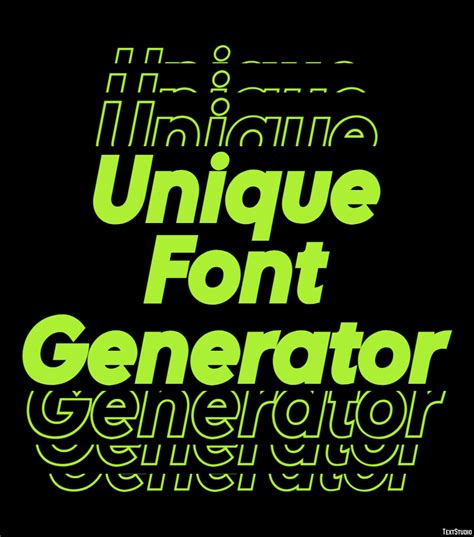
Psepselbasese Font Generator: Create Unique Text!
Psepselbasese Font Generator
Hey guys! Ever wanted to create text that looks totally unique and stands out from the crowd? Well, you’ve come to the right place! In this article, we’re diving deep into the world of Psepselbasese font generators. These nifty tools allow you to transform ordinary text into something extraordinary, adding a touch of creativity and fun to your messages, social media posts, designs, and more. Whether you’re a seasoned designer or just looking to spice up your online presence, understanding how to use a Psepselbasese font generator can unlock a whole new level of textual expression. Let’s explore what these generators are, how they work, and how you can make the most of them. By the end of this guide, you’ll be crafting eye-catching text that’s sure to grab attention and leave a lasting impression. So, buckle up and get ready to unleash your inner font wizard!
What is a Psepselbasese Font?
Okay, first things first: what exactly is a Psepselbasese font? The term “Psepselbasese” doesn’t refer to a specific, pre-defined font in the traditional sense like Arial or Times New Roman. Instead, it’s more of a playful term often associated with unique or stylized text transformations . Think of it as a code name for fonts that are a little bit out there, maybe quirky, or designed to be especially attention-grabbing. These fonts might incorporate unusual letterforms, decorative elements, or unconventional spacing. Essentially, a Psepselbasese font is all about standing out and making a statement.
Now, where do these fonts come from? Often, they’re the result of creative experimentation by graphic designers or font enthusiasts who want to push the boundaries of typography. They might start with a standard font and then modify it extensively, adding serifs, changing the letter shapes, or incorporating visual effects. Other times, Psepselbasese-style fonts are generated algorithmically using specialized software or online tools. These tools allow you to input regular text and then apply various transformations to create a unique output. The key is that these fonts aren’t your everyday, run-of-the-mill typefaces. They’re designed to be special, memorable, and often a little bit whimsical. They’re perfect for adding a touch of personality to your projects and making your text truly unforgettable.
How Does a Psepselbasese Font Generator Work?
So, how do these magical Psepselbasese font generators actually work? The basic principle is that they take your regular text input and then apply a series of transformations to it. These transformations can range from simple stylistic changes to more complex alterations of the letterforms themselves. Behind the scenes, these generators use a combination of algorithms, pre-designed templates, and character mappings to achieve the desired effect. When you type your text into the generator, the software breaks it down into individual characters. Then, for each character, it looks up the corresponding transformed version based on its internal rules and resources. Finally, it reassembles these transformed characters to create the final output, which you can then copy and paste into your project.
Let’s break down the process step-by-step:
1. Input: You enter your desired text into the generator’s input field. This could be a word, a phrase, or even a whole paragraph.
2. Processing: The generator’s algorithms analyze your input and identify each character.
3. Transformation: For each character, the generator applies a specific transformation based on the selected font style. This might involve changing the letter’s shape, adding decorative elements, or altering its spacing.
4. Output: The generator reassembles the transformed characters into a new string of text, which is displayed as the output. This output is the Psepselbasese-style version of your original text.
5. Copy & Paste: You can then copy the generated text and paste it into your desired application, such as a social media post, a design project, or a document.
Different generators may offer different levels of customization. Some might allow you to adjust parameters like font size, color, and spacing, while others might provide a selection of pre-designed font styles to choose from. Regardless of the specific features, the underlying principle remains the same: to transform ordinary text into something unique and eye-catching. These generators are a powerful tool for anyone looking to add a touch of creativity to their text-based projects, without needing advanced design skills.
Key Features to Look for in a Psepselbasese Font Generator
When you’re on the hunt for the perfect Psepselbasese font generator, there are a few key features that can really make a difference. Think about what you need the generator for and what kind of styles you’re hoping to create. The right features can save you time and effort while giving you more creative control over your text transformations. Here are some things to keep an eye out for:
• Variety of Font Styles: The more font styles a generator offers, the more options you have for creating unique text. Look for generators that provide a wide range of styles, from subtle variations to more dramatic transformations. Consider styles like bold, italic, monospace, cursive, and decorative fonts. A good variety ensures that you can find the perfect style to match your specific needs.
• Customization Options: The best generators allow you to customize the font style to your liking. This might include options to adjust font size, color, spacing, and other parameters. The ability to tweak these settings gives you greater control over the final output and allows you to fine-tune the text to achieve the desired look. Some generators even offer advanced customization options, such as the ability to add shadows, outlines, or other special effects.
• Ease of Use: A user-friendly interface is essential for a good font generator. The generator should be easy to navigate and understand, even for beginners. Look for generators with clear instructions and intuitive controls. The process of inputting text, selecting a font style, and generating the output should be straightforward and hassle-free. A clean and simple interface can save you time and frustration, allowing you to focus on the creative aspects of the process.
• Preview Feature: A preview feature allows you to see how your text will look before you generate the final output. This is incredibly helpful for experimenting with different font styles and customization options. The preview should update in real-time as you make changes, so you can quickly see the effect of your adjustments. A good preview feature can save you time and prevent you from generating text that doesn’t meet your expectations.
• Copy & Paste Functionality: The ability to easily copy and paste the generated text is crucial for seamless integration with other applications. The generator should provide a simple way to copy the text to your clipboard, so you can paste it into your desired document, social media post, or design project. Some generators even offer options to download the generated text as an image or other file format.
Where Can You Use Psepselbasese Fonts?
Okay, so you’ve got this awesome Psepselbasese font, but where can you actually use it? The possibilities are pretty much endless! These unique fonts are perfect for adding a touch of personality and flair to a wide range of projects, both online and offline. Here are just a few ideas to get your creative juices flowing:
• Social Media: Psepselbasese fonts are a fantastic way to make your social media posts stand out. Use them in your profile bio, captions, and comments to grab attention and express your unique style. Whether you’re promoting a brand, sharing a personal update, or just trying to be creative, these fonts can help you make a lasting impression.
• Design Projects: If you’re working on a design project, such as a poster, flyer, or logo, Psepselbasese fonts can add a unique and eye-catching element. Use them sparingly to highlight key information or to create a focal point. Just be careful not to overuse them, as too much of a unique font can become overwhelming.
• Websites and Blogs: Incorporating Psepselbasese fonts into your website or blog can enhance its visual appeal and create a memorable user experience. Use them for headings, subheadings, or call-to-action buttons to draw attention to important elements. Again, moderation is key. A few well-placed Psepselbasese fonts can make a big impact without cluttering the design.
• Invitations and Cards: Planning a special event? Use Psepselbasese fonts to create unique and personalized invitations or cards. These fonts can add a touch of elegance, whimsy, or fun, depending on the style you choose. They’re perfect for weddings, birthdays, holidays, and other special occasions.
• Presentations: Add visual interest to your presentations by incorporating Psepselbasese fonts into your slides. Use them for titles, bullet points, or to highlight key takeaways. Just be sure to choose fonts that are easy to read and don’t distract from the content.
• Personal Projects: Don’t forget about personal projects! Psepselbasese fonts can be used to add a personal touch to scrapbooks, journals, artwork, and other creative endeavors. Let your imagination run wild and see what you can create!
Tips for Using Psepselbasese Fonts Effectively
Alright, so you’re armed with a killer Psepselbasese font and ready to unleash it on the world. But before you go wild, let’s talk about some tips for using these fonts effectively. The key is to use them strategically and with intention. Here are some guidelines to help you make the most of your Psepselbasese fonts:
• Use Sparingly: Psepselbasese fonts are designed to be eye-catching and unique, but they can easily become overwhelming if overused. Stick to using them for headings, titles, or other key elements that you want to highlight. Avoid using them for large blocks of text, as this can make the text difficult to read.
• Consider Readability: While Psepselbasese fonts are all about creativity and style, it’s important to ensure that the text remains readable. Choose fonts that are clear and easy to understand, even when they’re stylized. Avoid fonts with excessive ornamentation or unusual letterforms that can make the text difficult to decipher.
• Match the Tone: The font you choose should match the tone and style of your project. For example, a playful or whimsical font might be appropriate for a children’s book or a social media post, while a more elegant or sophisticated font might be better suited for a wedding invitation or a business presentation. Consider the overall message you’re trying to convey and choose a font that aligns with that message.
• Pair with Simpler Fonts: Psepselbasese fonts often work best when paired with simpler, more traditional fonts. Use the Psepselbasese font for headings or titles and a simpler font for the body text. This creates a visual contrast that makes the Psepselbasese font stand out without overwhelming the reader.
• Test and Preview: Before finalizing your design, be sure to test and preview the text in different sizes and contexts. This will help you ensure that the font is readable and that it looks good on different devices and screens. Pay attention to the spacing, kerning, and overall appearance of the text.
By following these tips, you can use Psepselbasese fonts effectively to add a touch of creativity and personality to your projects without sacrificing readability or visual appeal. Remember, the key is to use them strategically and with intention, always keeping your audience and your message in mind.
So, there you have it! Everything you need to know about Psepselbasese font generators. From understanding what these fonts are to learning how to use them effectively, you’re now equipped to create unique and eye-catching text that stands out from the crowd. Whether you’re designing social media posts, websites, invitations, or personal projects, Psepselbasese fonts can add a touch of creativity and personality to your work. Just remember to use them sparingly, consider readability, and match the tone to your project. With a little practice and experimentation, you’ll be crafting stunning text that captures attention and leaves a lasting impression. Now go forth and unleash your inner font wizard! Have fun experimenting with different styles and finding the perfect Psepselbasese fonts to express your unique voice and vision. The world of typography is your oyster!